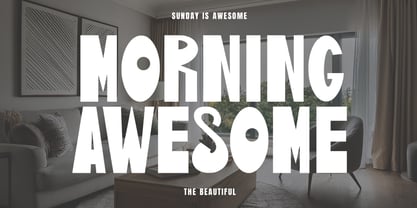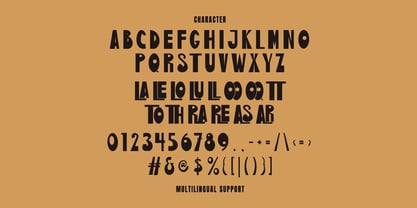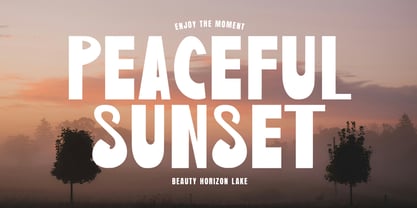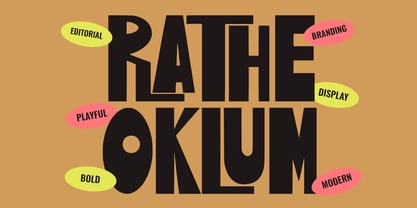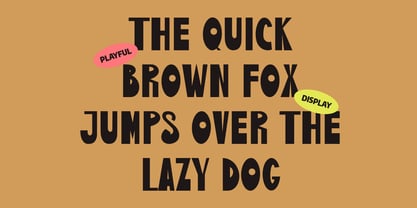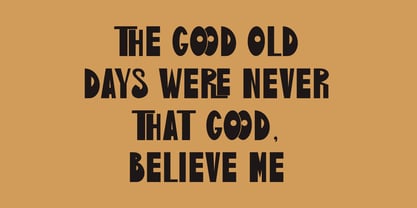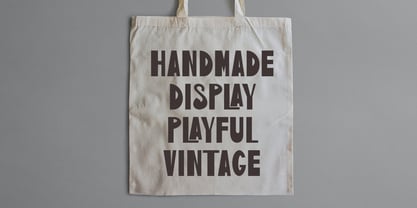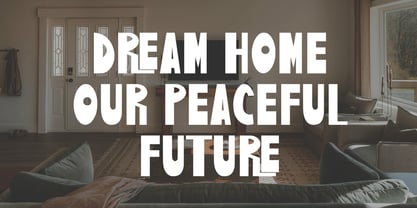
MC Rathe Oklum
by Maulana Creative
The MC Rathe Oklum Font Family was designed by Gilang Maulana and published by Maulana Creative. MC Rathe Oklum contains 1 styles. More about this family
Elevate your design projects with Rathe Oklum, a powerhouse display font designed to command attention. This typeface seamlessly blends heavy, architectural structures with quirky, experimental shapes, making it the perfect choice for designers looking to break the mold. Whether you are working on a high-end editorial layout, a vibrant branding identity, or eye-catching social media graphics, Rathe Oklum delivers a perfect balance of modern sophistication and playful energy. Its unique character widths and tight kerning capabilities create a rhythmic, textured look that works wonders for posters, headlines, and fashion brands.
Designers: Gilang Maulana
Foundry: Maulana Creative